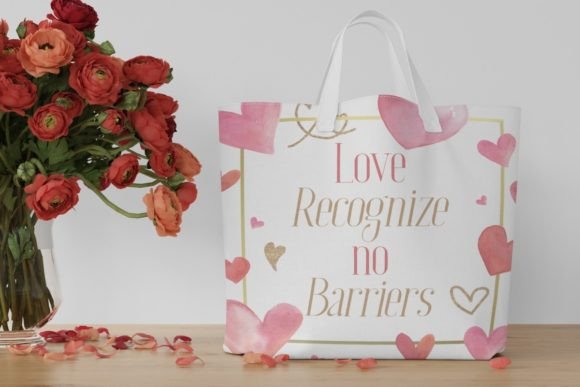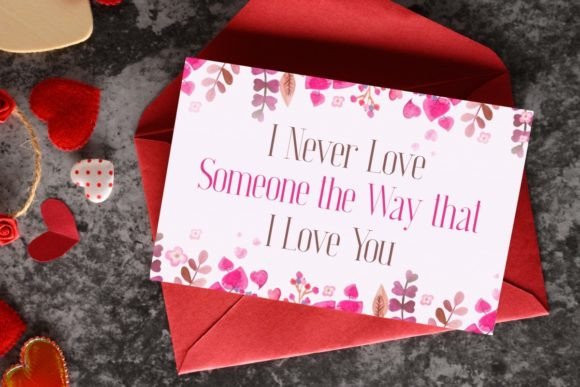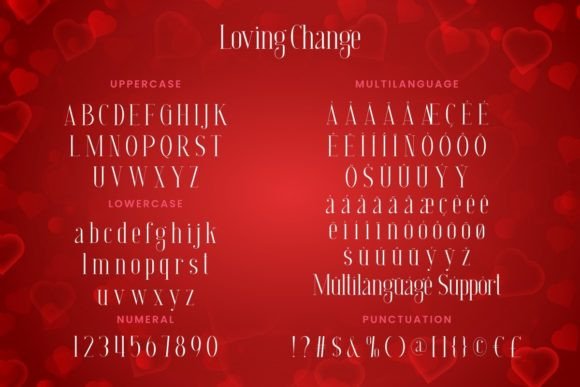
Introduction to Loving Change Font
Loving Change Font is a modern serif font with a classy look.
This font is suitable for any creative project such as a banner, brand logo, design packaging, greeting card, heading, labels, poster, quotes, stationery, t-shirt, tote bag design, and more PUA Encode Characters means you can access all the glyphs and other characters easily (open with Character Map on Windows and Font Book on MAC).
Key Features of Loving Change Font
Why Choose Loving Change Font?
Loving Change Font offers exceptional quality and versatility, making it a valuable addition to your design toolkit. Whether you’re creating for personal projects or commercial use, Loving Change Font delivers professional results.